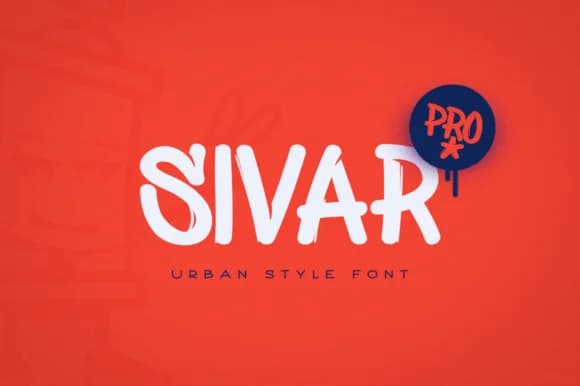
Sivar, designed by DonMarciano, captures the raw energy of spray paint lettering with characters that feel genuinely hand-done rather than digitally smoothed and controlled. Each individual letterform features jagged edges and organic weight variation that accurately mimic the imprecision of tagging at high speed, giving designs an authentic street edge that feels lived-in rather than like a design studio interpretation.
This font thrives wherever urban authenticity and attitude matter most to your audience. Hip-hop album covers and music merchandise benefit from its dynamic character, as do street art posters that need to command real attention on a wall or screen. Graffiti-inspired murals and mural work sing with this typeface, and it's equally at home on clothing labels and apparel tags targeting skate and streetwear audiences. For vintage-style music flyers, event graphics announcing underground shows, or dance crew promotional materials, Sivar brings handwritten credibility that reads as genuine rather than performed by design software. The imperfect, energetic letterforms are precisely what make it work in every application.
Sivar Font is a script font that shines as a display or heading face. Pair it with a clean sans-serif or serif font for body text β the contrast creates a clear hierarchy while the two styles stay balanced and easy to read.
Sivar Font
by DonMarciano